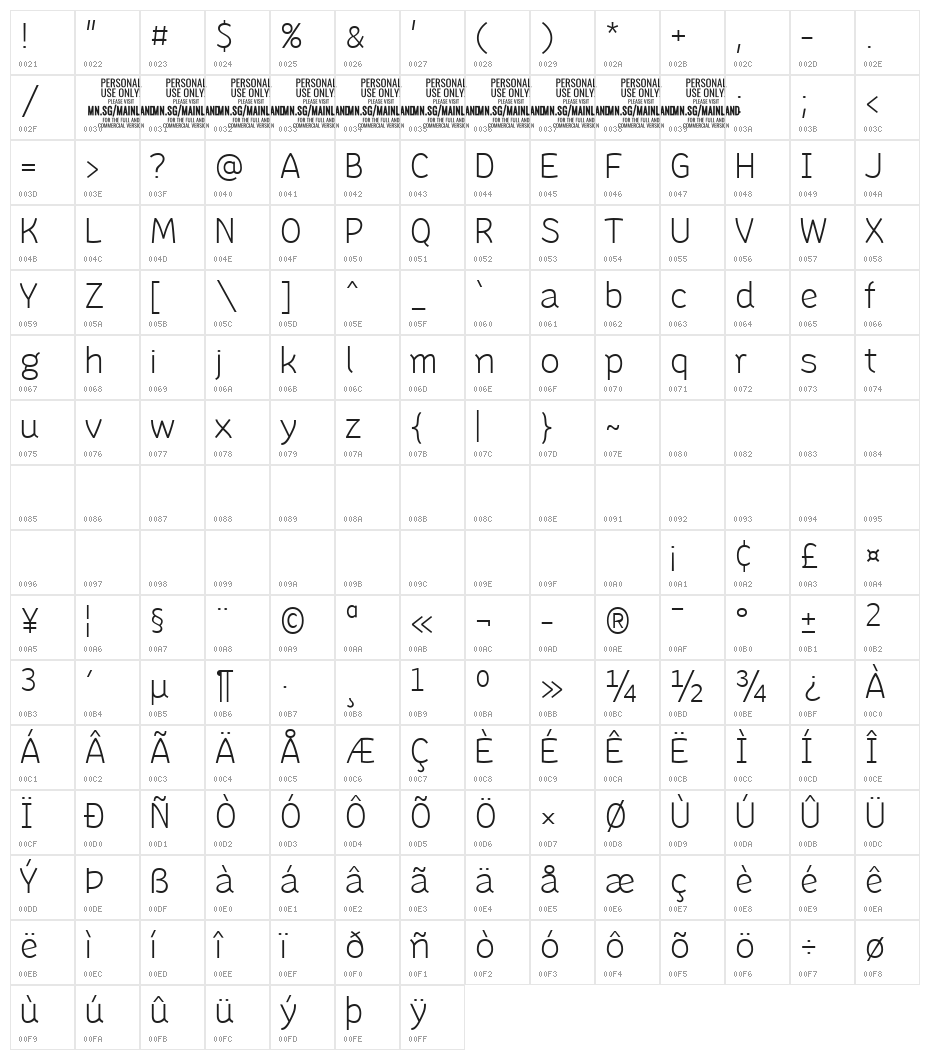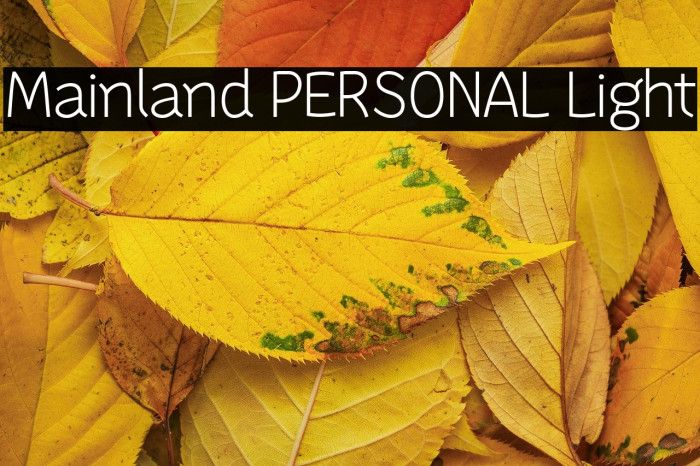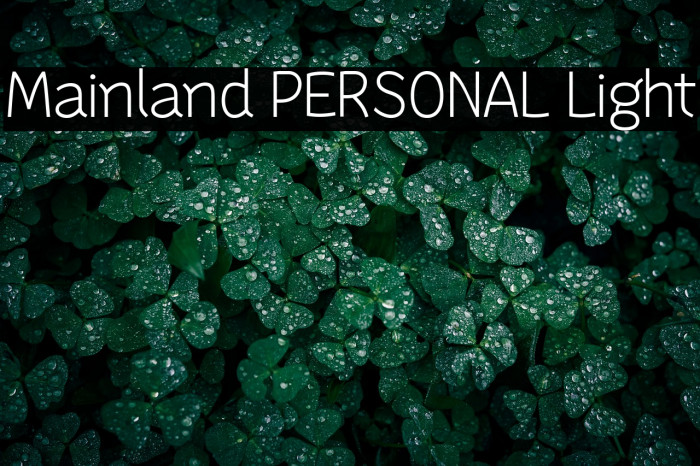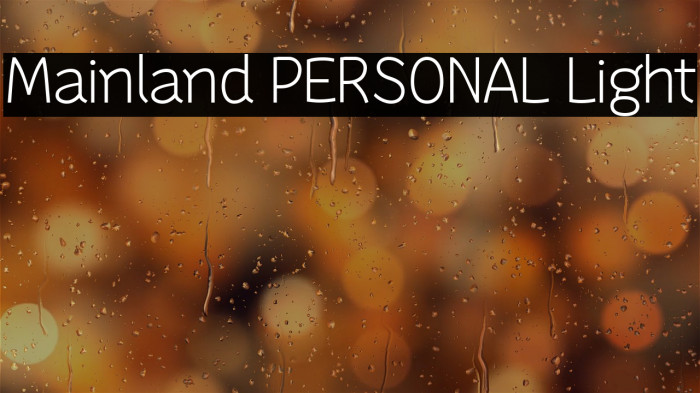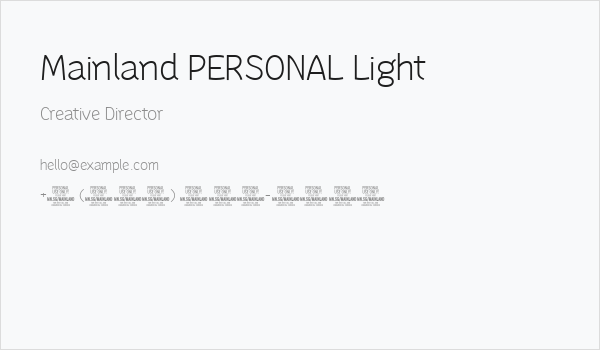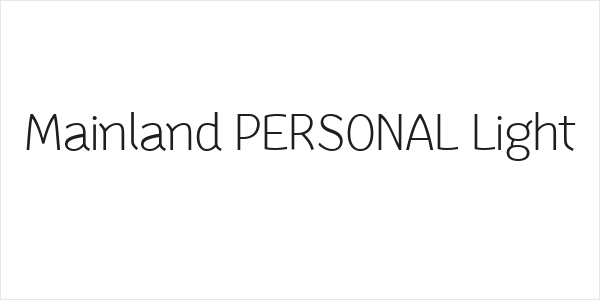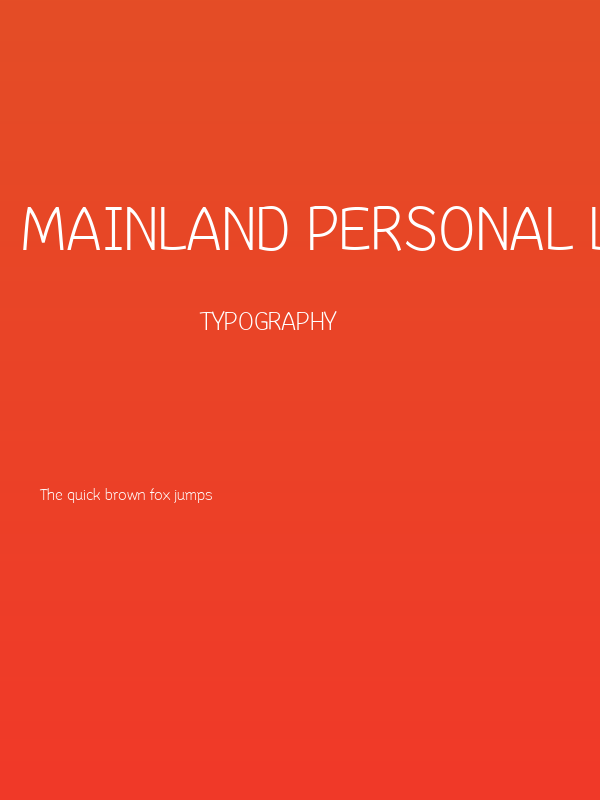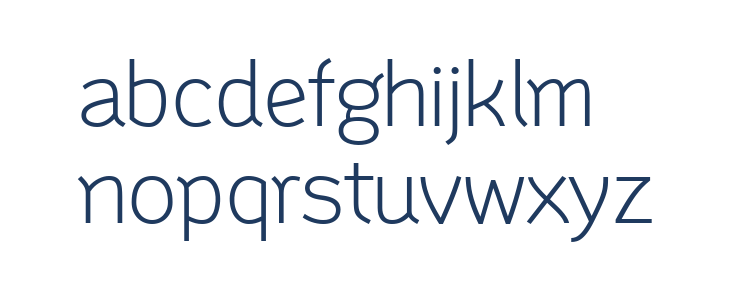
Mainland PERSONAL Light Font
Mainland PERSONAL Light Description
This font features a clean and modern sans-serif design with a light weight, offering a sleek and minimalist appearance. The characters are well-proportioned with a consistent stroke width, providing a harmonious and balanced look. The uppercase and lowercase letters maintain a uniform style, enhancing readability. The numerals and special characters are crafted with the same attention to detail, ensuring versatility across various applications. Its simplicity and elegance make it suitable for contemporary design projects.